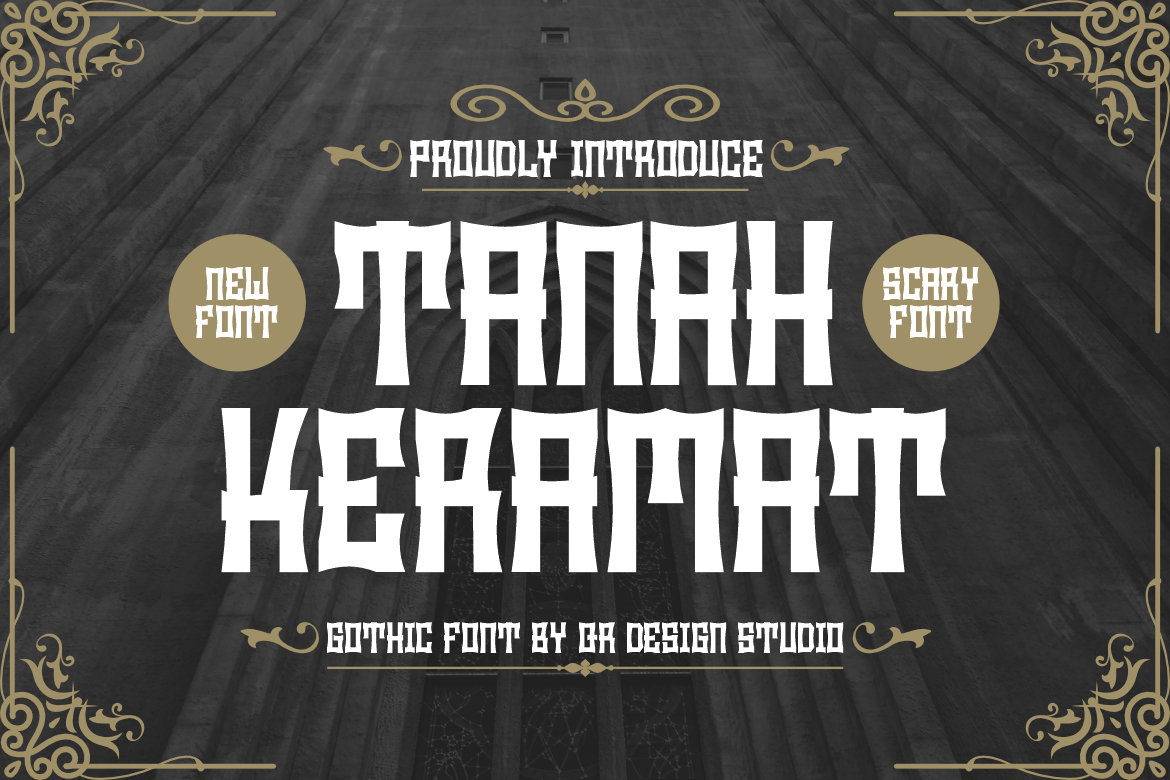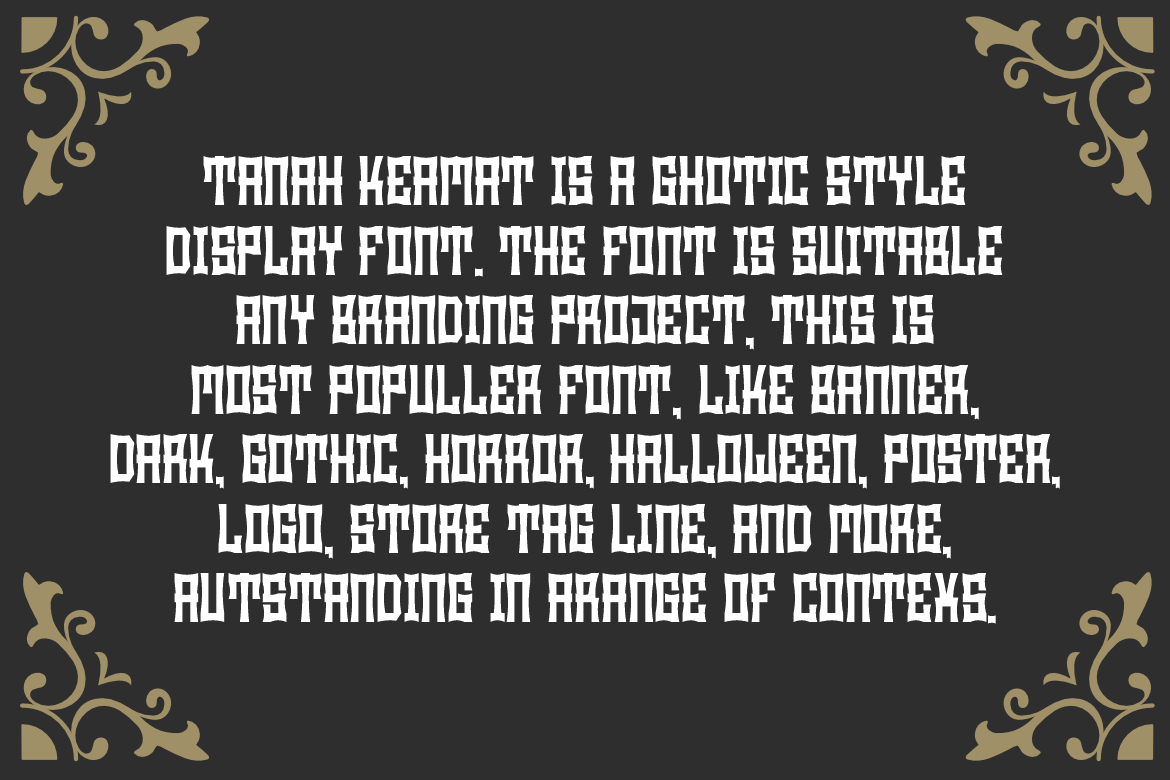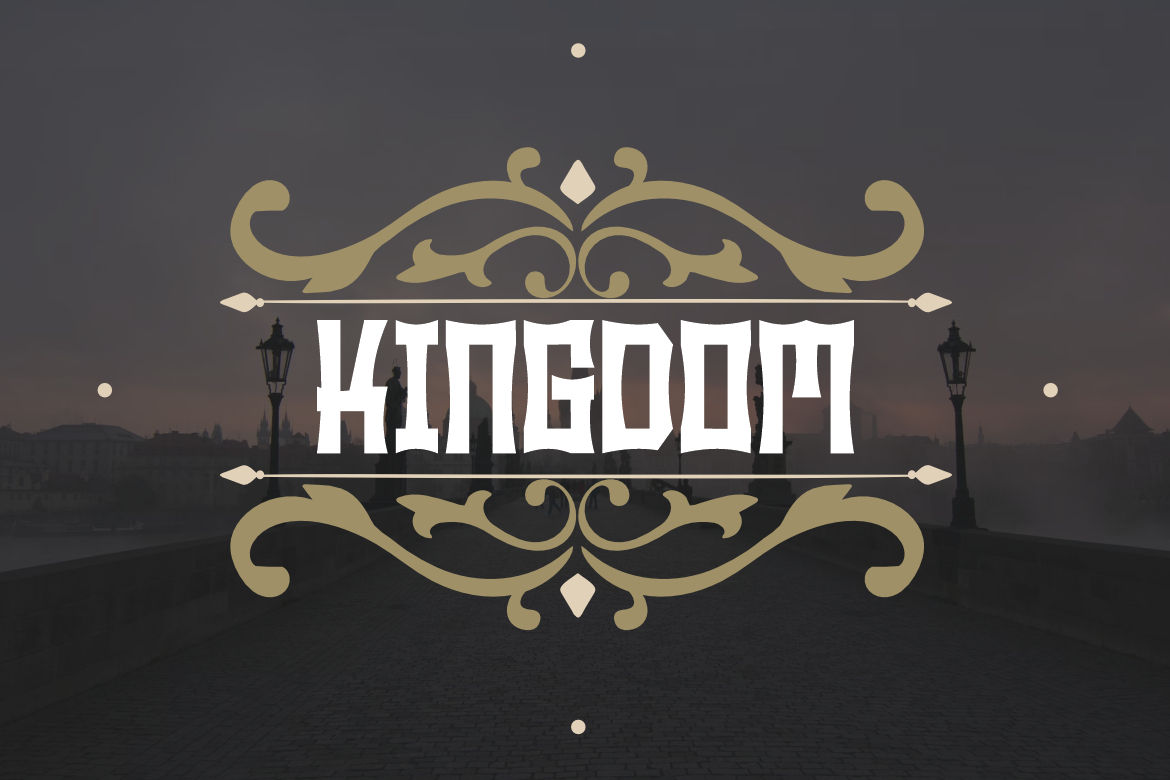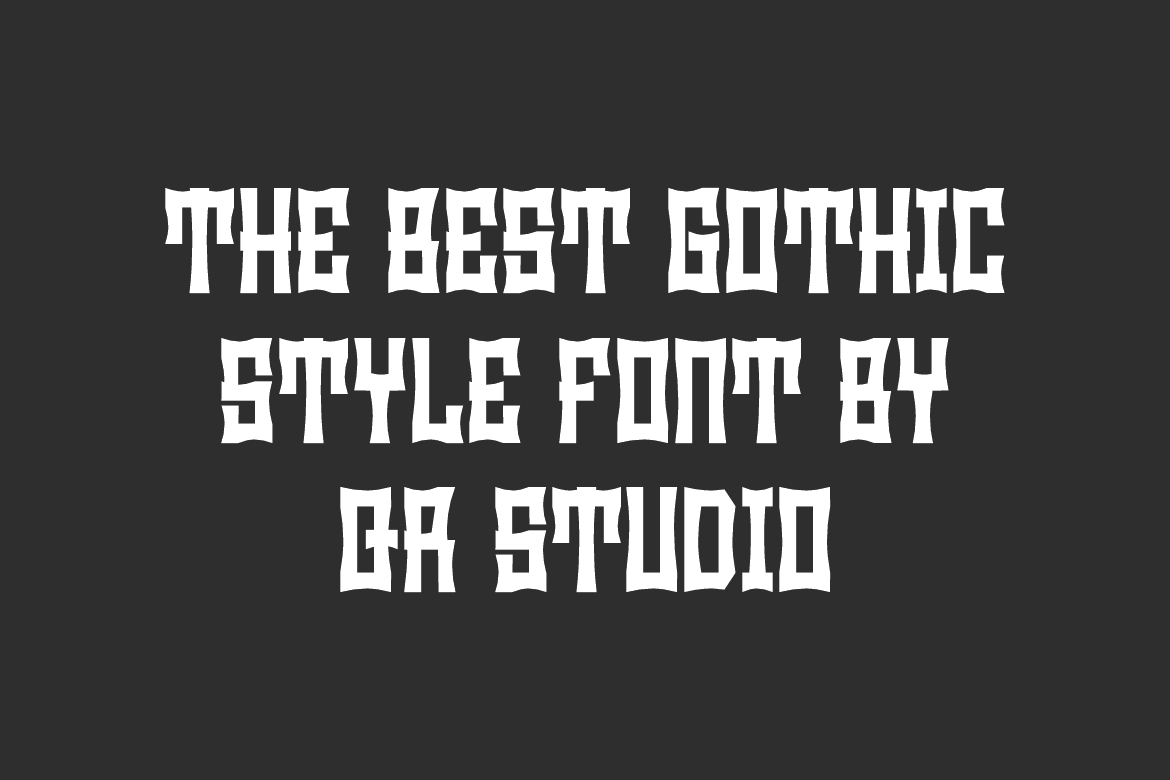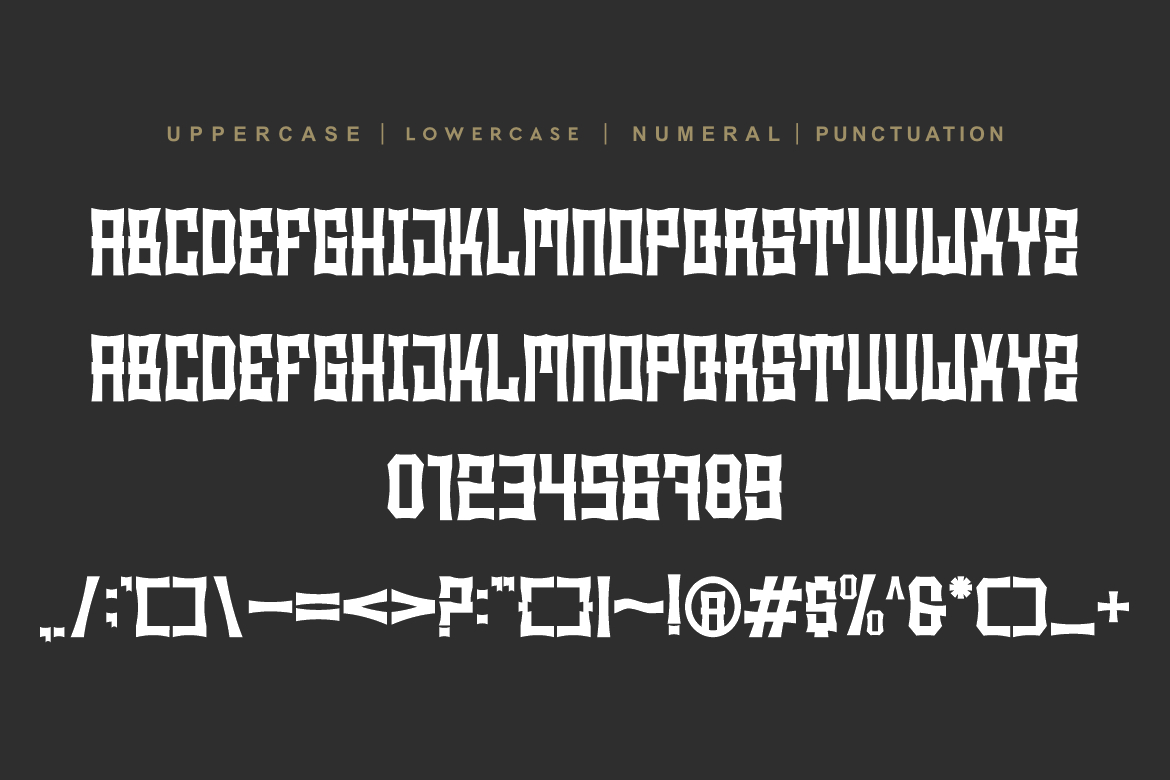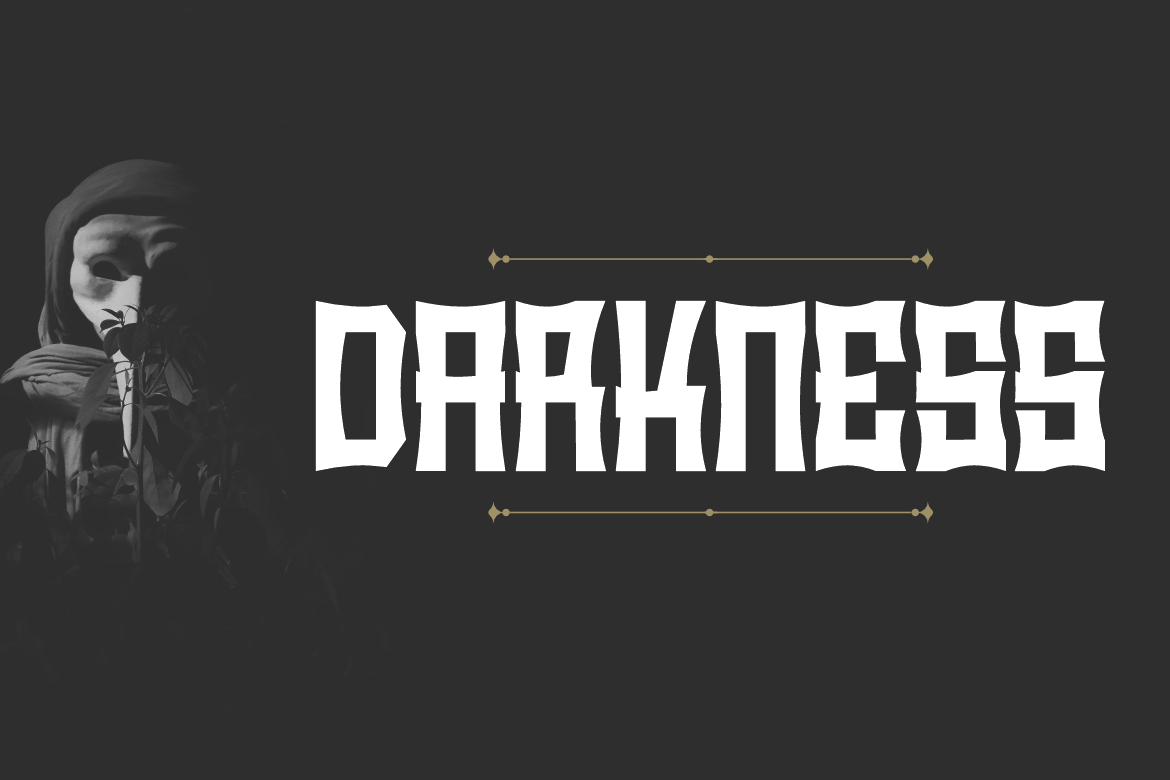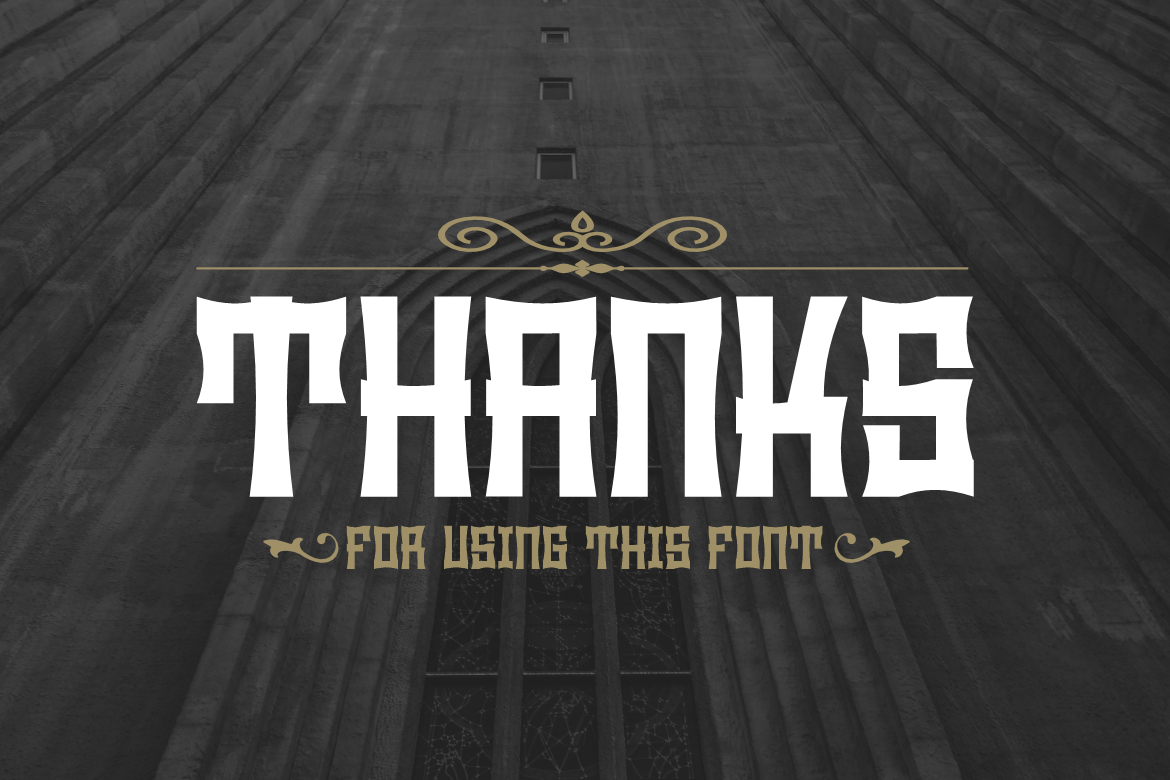
Tanah Keramat Font
About Tanah Keramat Font
Tanah Keramat is a bold and thick lettered blackletter font. Add it confidently to your projects, and you will love the results.